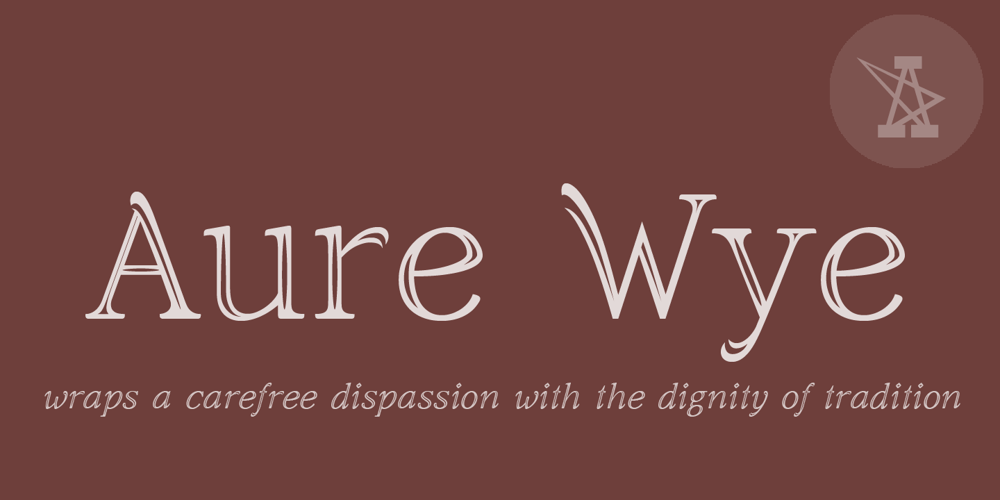
Aure Wye
Aure Wye font
Aure Wye Font Family was designed by Aurora Isaac and published by Aure Font Design. Aure Wye contains 4 styles and family package options. Aure Wye wraps a carefree dispassion with the dignity of tradition. The precise engraving and organic finials of these decorative serif forms engage the reader with a subtext of elegance. Wye brings an unpretentious grace to titles and drop-caps and provides dignity to astrological expressions and chartwheels. In Regular, Wye presents a formal presence; in Italic, Wye offers a more romantic feel. Its small-caps add a stately variety to Wye’s typographic textures. Wye is an original design developed by Aurora Isaac. After more than a decade in development, 2018 marks the first release of the CJ and KB glyphsets, now available in regular and italic. The CJ glyphset is a full text font supporting a variety of European languages. A matching set of small-caps complements the extended lowercase and uppercase glyphsets. Supporting glyphs include standard ligatures, four variations of the ampersand, and check-mark and happy-face with their companions x-mark and grumpy-face. Numbers are available in lining, oldstyle, and small versions, with numerators and denominators for forming fractions. Companion glyphs include Roman numerals, specialized glyphs for indicating ordinals, and a variety of mathematical symbols and operators. The CJ glyphset also includes an extended set of glyphs for typesetting Western Astrology. These glyphs are also available separately in the KB glyphset: a symbol font re-coded to allow easy keyboard access for the most commonly used glyphs. Aure Wye will stand up as a text font, but for extended text, try pairing Wye with its close cousin, Aure Declare. Used in titles and drop-caps, Wye will provide a striking elegance that will blend well with the serifed forms of Declare. Give Aure Wye a trial run! You may discover a permanent place for this font family in your typographic palette. >> AureFontDesign.com